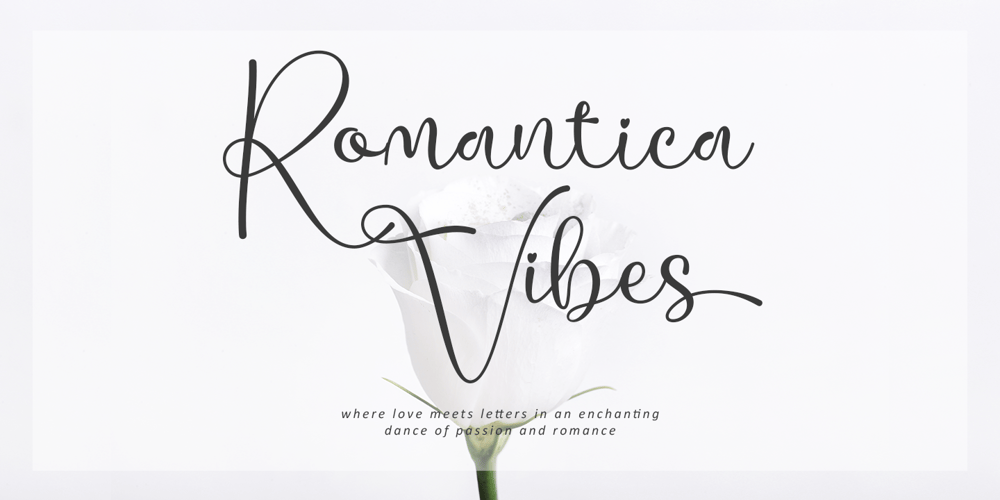
Romantica Vibes
Romantica Vibes font
Romantica Vibes Font Family was designed by Thomas Aradea and published by Letterara. Romantica Vibes contains 2 styles and family package options. Indulge in the romantic allure of Romantica Vibes, a captivating script font that weaves passion and sophistication into your designs. Infuse your projects with the timeless charm of love, as this font adds a touch of grace and warmth. With PUA encoding, explore its versatile features effortlessly, ensuring your Valentine’s creations are both enchanting and memorable